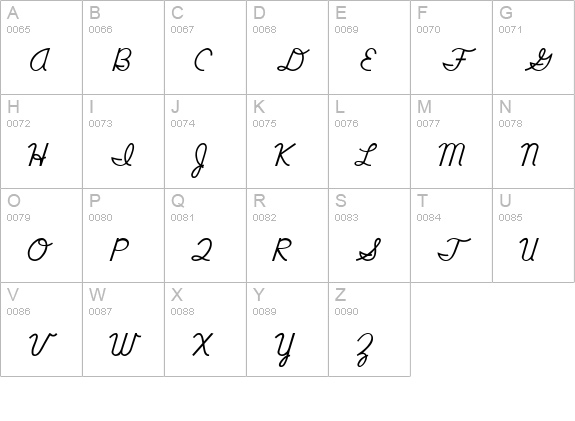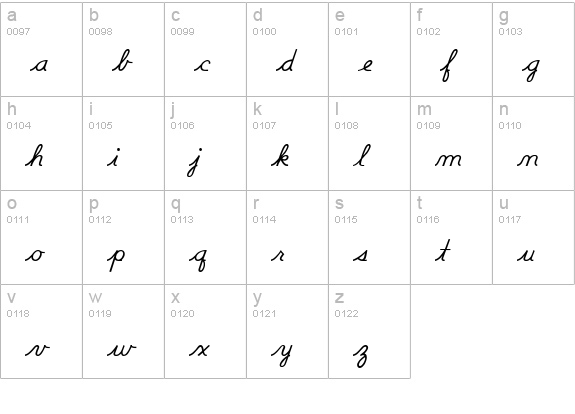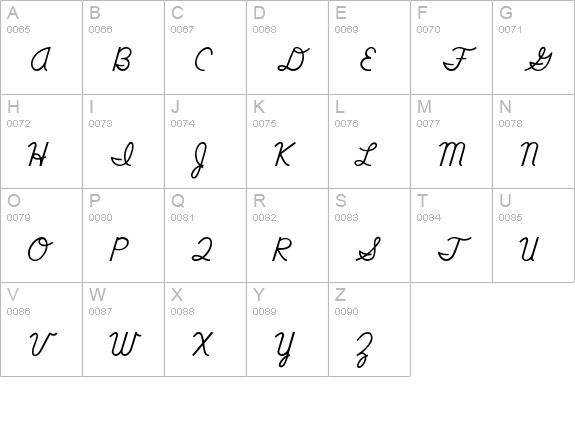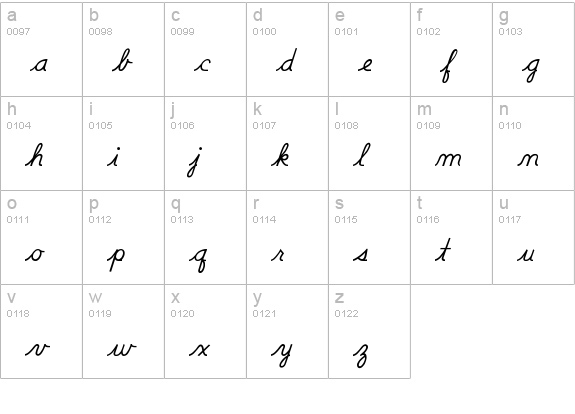
DNealianRegular Font Details
DNealianRegular font is a modern and stylish typeface that strikes the perfect balance between elegance and readability. With its clean lines and smooth curves, this font is ideal for various design projects, including branding, packaging, and marketing materials. What makes DNealianRegular font even more appealing is that it is available for free download at FontsMarket.com. This means you can easily access and use this versatile font in your creative projects without any cost. Whether you're a graphic designer, a student, or a business owner, DNealianRegular font is a valuable addition to your font library. Don't miss out on the opportunity to enhance your designs with this beautiful typeface. Download DNealianRegular font today from FontsMarket.com and elevate your projects with its sophisticated charm and versatility.